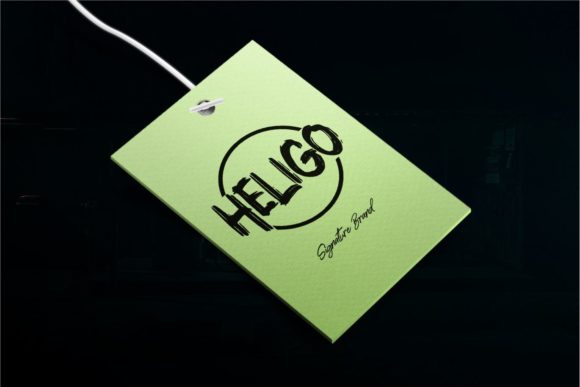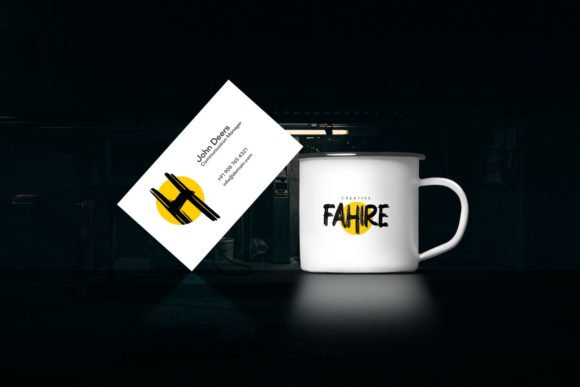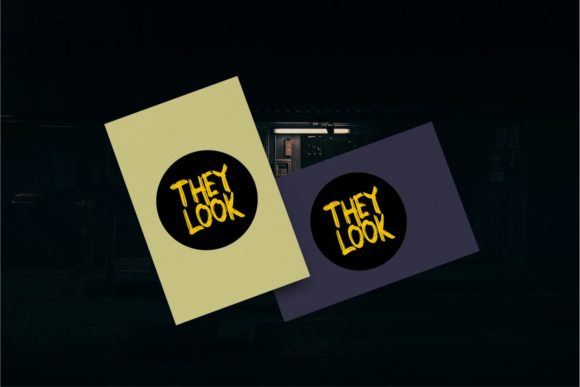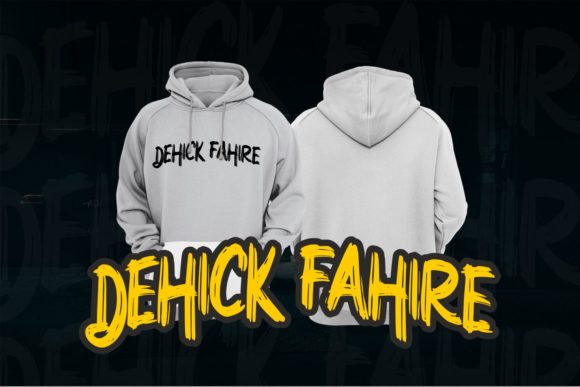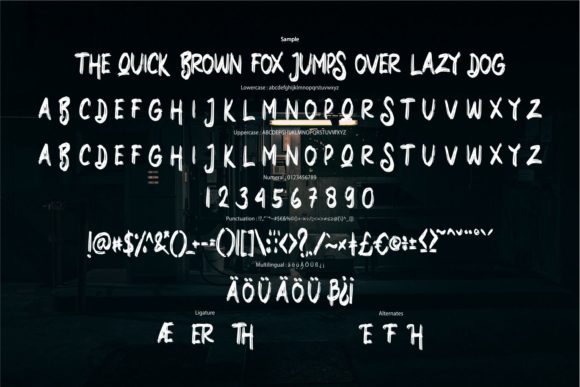
The Perfect Brush for Your Creative Stroke
As a designer, have you ever stumbled upon a font that makes your ideas spring to life? For me, it was the moment I laid eyes on the Black Flores Font – a rough textured, brushed display font that screams creativity. Its unique, handcrafted feel instantly sparked a flood of ideas for letterheads, titles, and stationery projects.
Black Flores Font is more than just a font; it’s a tool to elevate your designs and bring a touch of personality to your work. Its versatility makes it perfect for a wide range of applications, from editorial and advertising to packaging and branding. As a designer, you’ll appreciate the value it adds to your projects, setting you apart from the rest and making your designs truly stand out.
- Unique Characteristics: Black Flores features a unique blend of modern and vintage elements, with intricate details and ornate flourishes that add a touch of elegance to any design.
Designer Review: Black Flores Font
Black Flores Font is a unique, handwritten font that immediately grabs attention. ✨ The font’s irregular strokes and subtle imperfections give it a personal touch that’s hard to replicate with digital tools. ✨ I appreciate how the font’s designers have managed to create a cohesive look that feels both modern and vintage at the same time.
- Unique, handcrafted look that sets it apart from more common fonts.
- Effective for use in headings, titles, and other display text.
- Works well with a variety of design styles, from modern to vintage.
- ⚠️ May be difficult to read at small font sizes due to its intricate strokes.
- ⚠️ Limited character set, which may make it less suitable for lengthy blocks of text.
- ⚠️ Not ideal for use in situations where a high level of precision is required.
Overall, I’m impressed with the Black Flores Font’s unique aesthetic and versatility. While it may have some limitations, it’s a great choice for designers looking to add a personal touch to their projects. With careful consideration of its use cases, Black Flores Font can be a valuable addition to any designer’s toolkit.
To get the most out of Black Flores Font, use it for headings and titles to add a touch of elegance to your designs. This font is ideal for creative projects, such as invitations, brochures, and social media graphics. Experiment with different font sizes and colors to enhance the visual impact of your design.
Black Flores Font is commonly used for:
- Social media graphics and ads
- Personal branding and logos